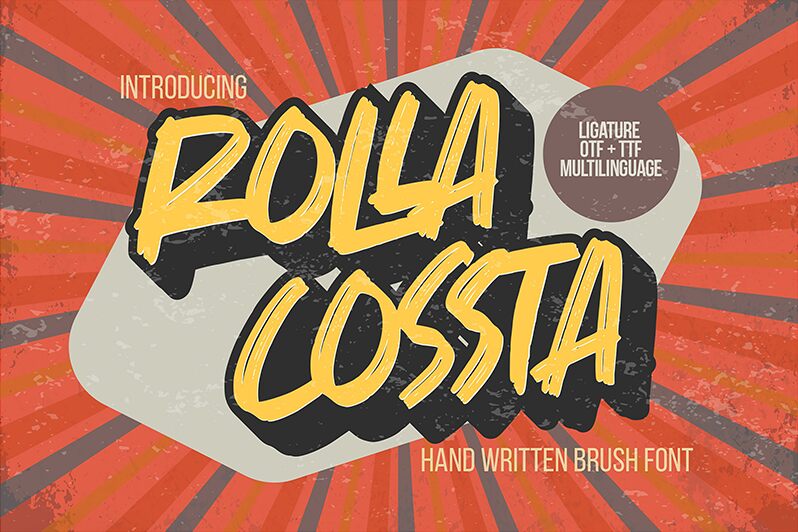
Rolla Cossta
Rolla Cossta emerges from the creative studio of Gassstype, a font that captures the essence of spontaneity with its semi-bold, brush stroke flair. As if painted with a swift, confident hand, this handwritten brush font exudes modern style and dramatic movement. Crafted for those who dare to make a statement, Rolla Coassta is your go-to typeface for designs that require an authentic touch and a dash of fun.
With its textured appearance and cool characteristics, it brings an organic feel to any project. Whether adorning labels with an edgy vibe or adding personality to posters, Rolla Coassta's adaptability shines across diverse creative landscapes. It's an impeccable choice for branding endeavors seeking a natural look or digital spaces desiring to infuse character into their aesthetic. Embrace the vibrant energy of Rolla Coassta and let your designs speak volumes with every curve and line.